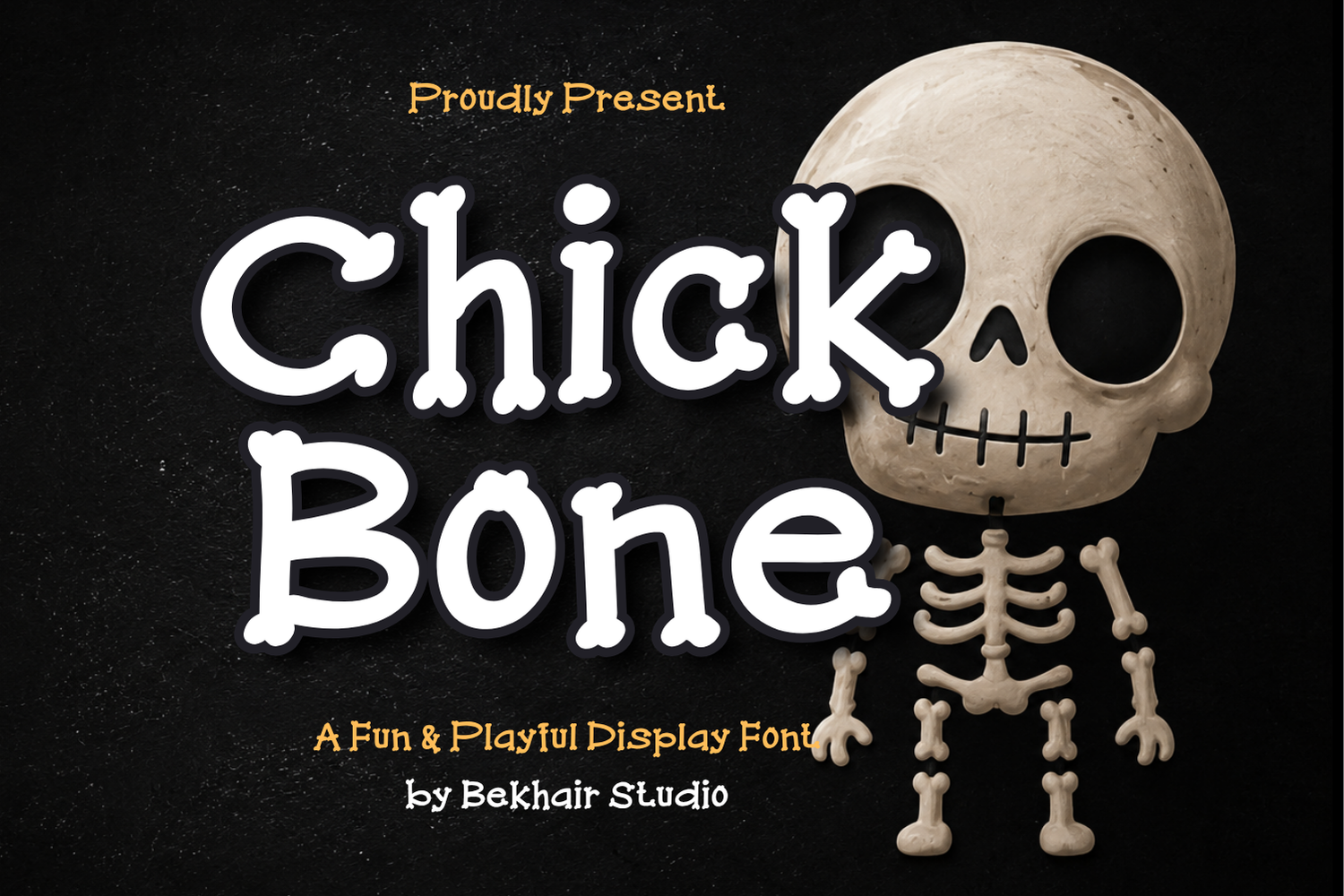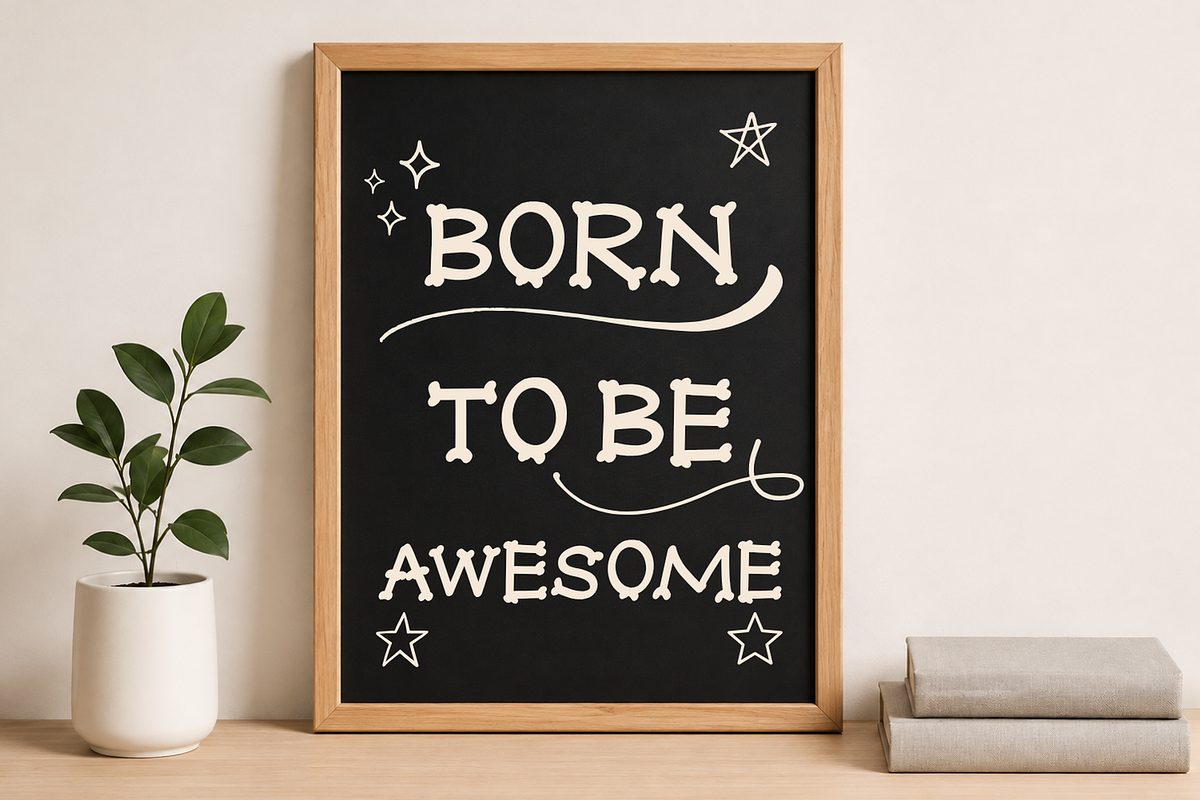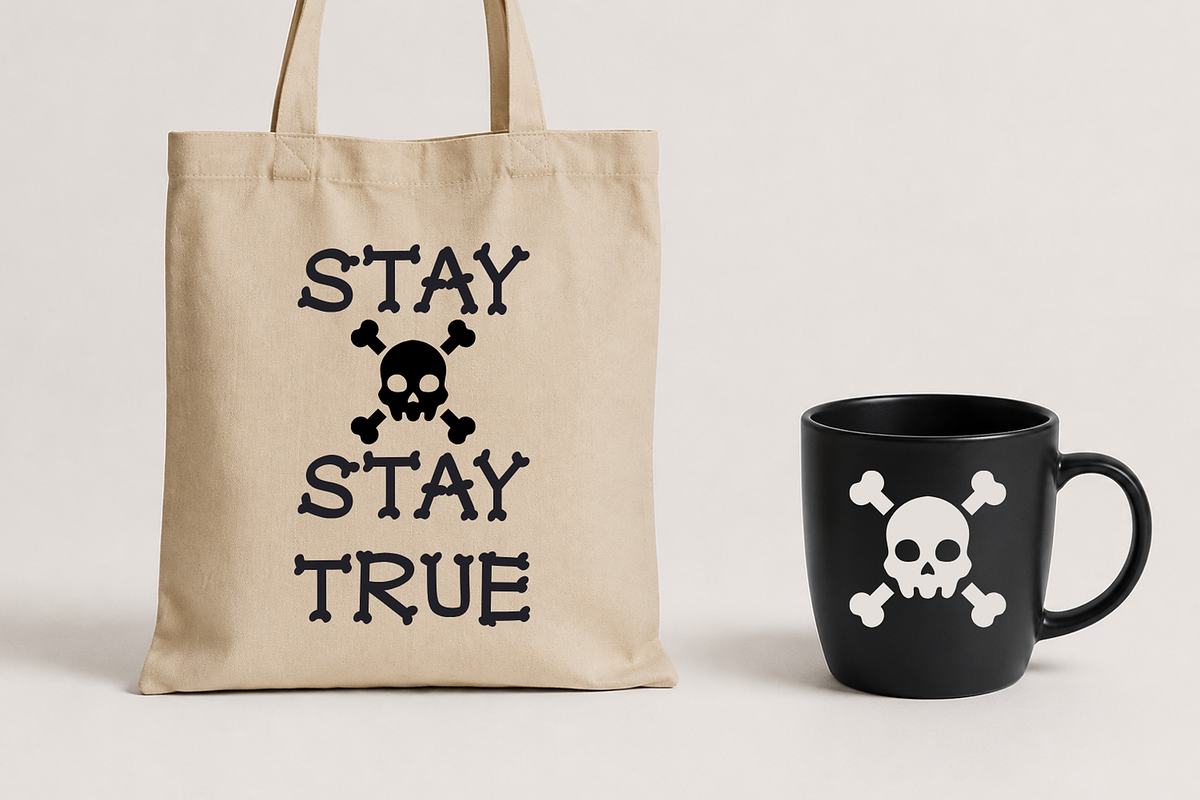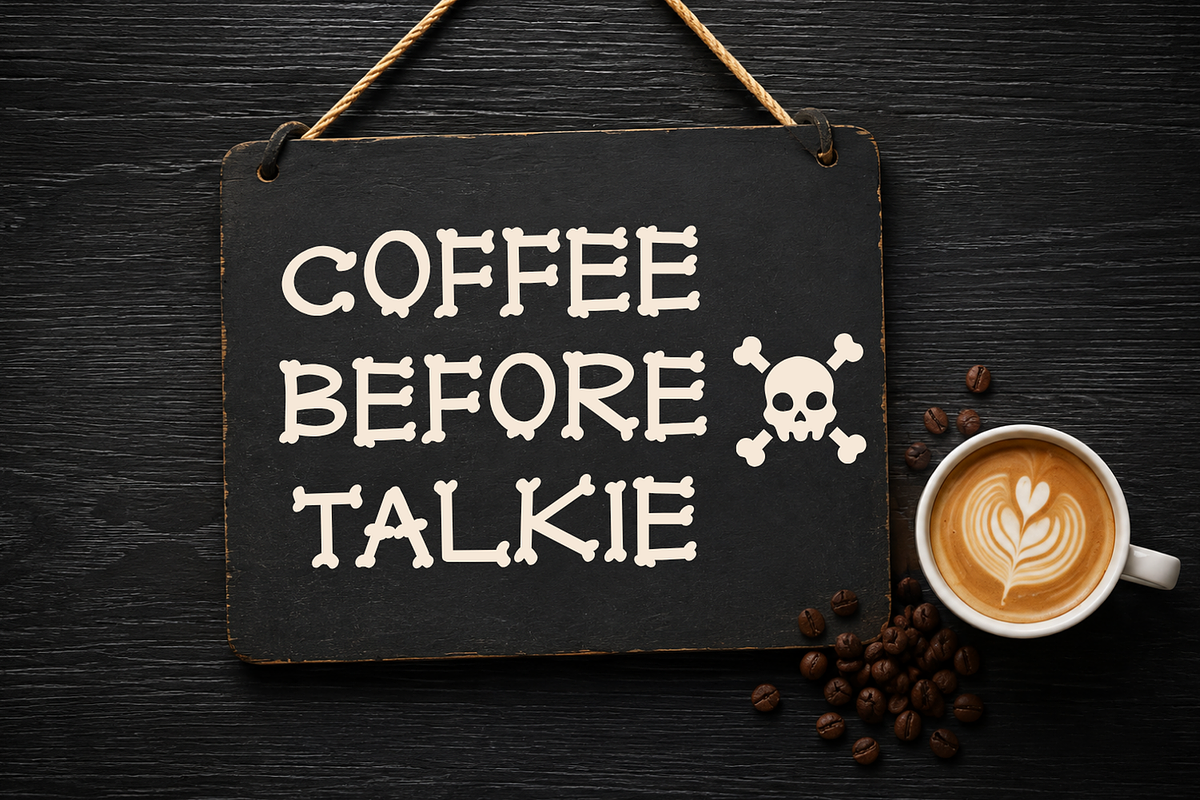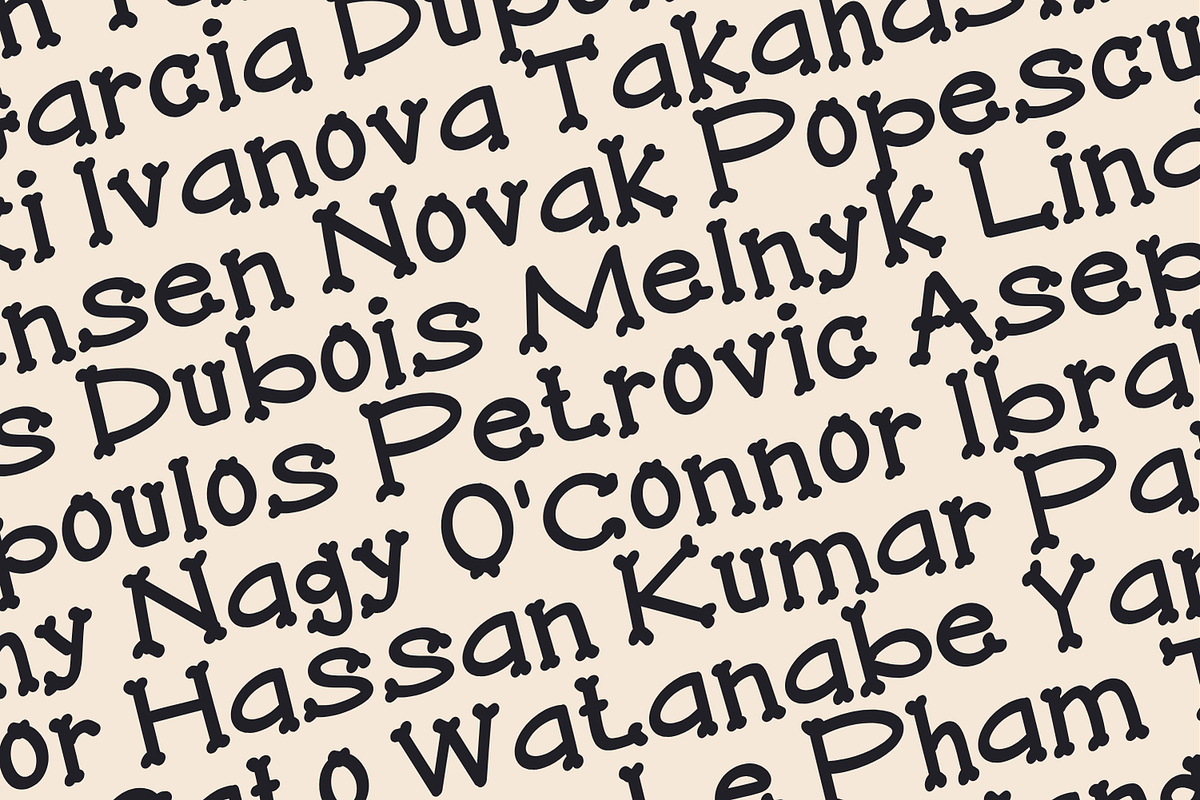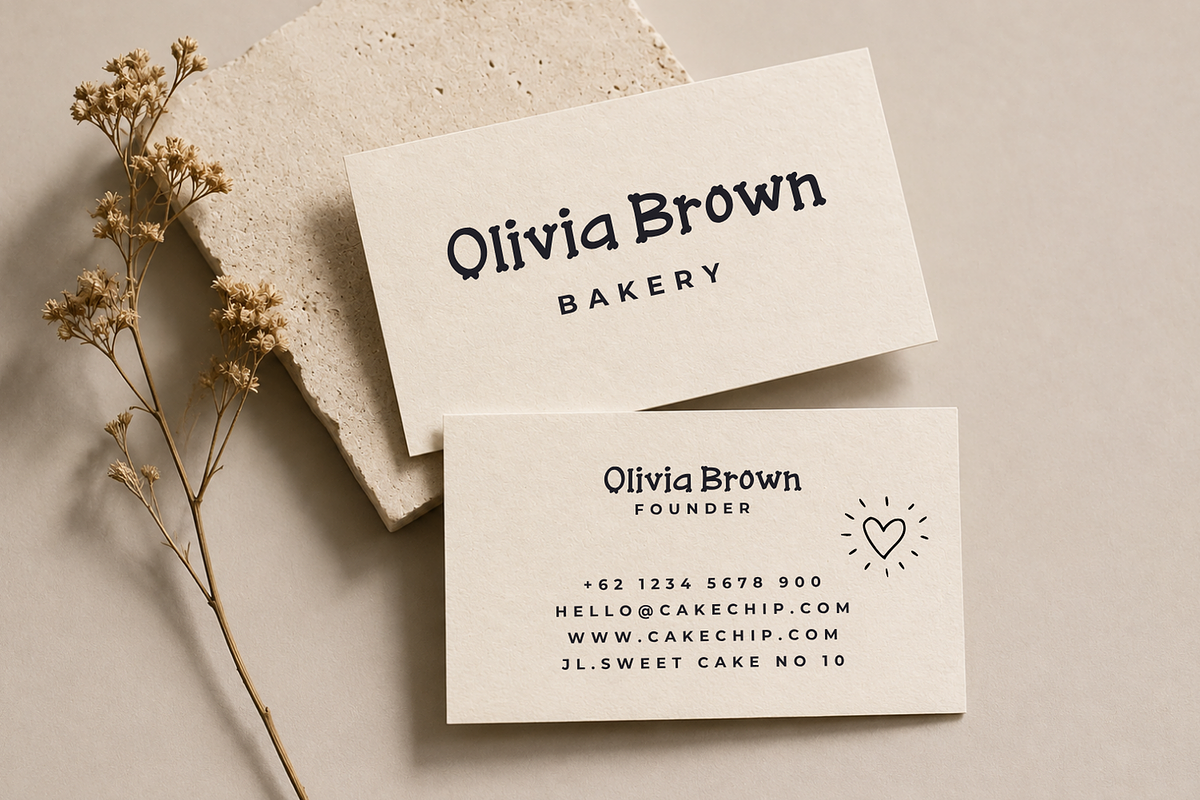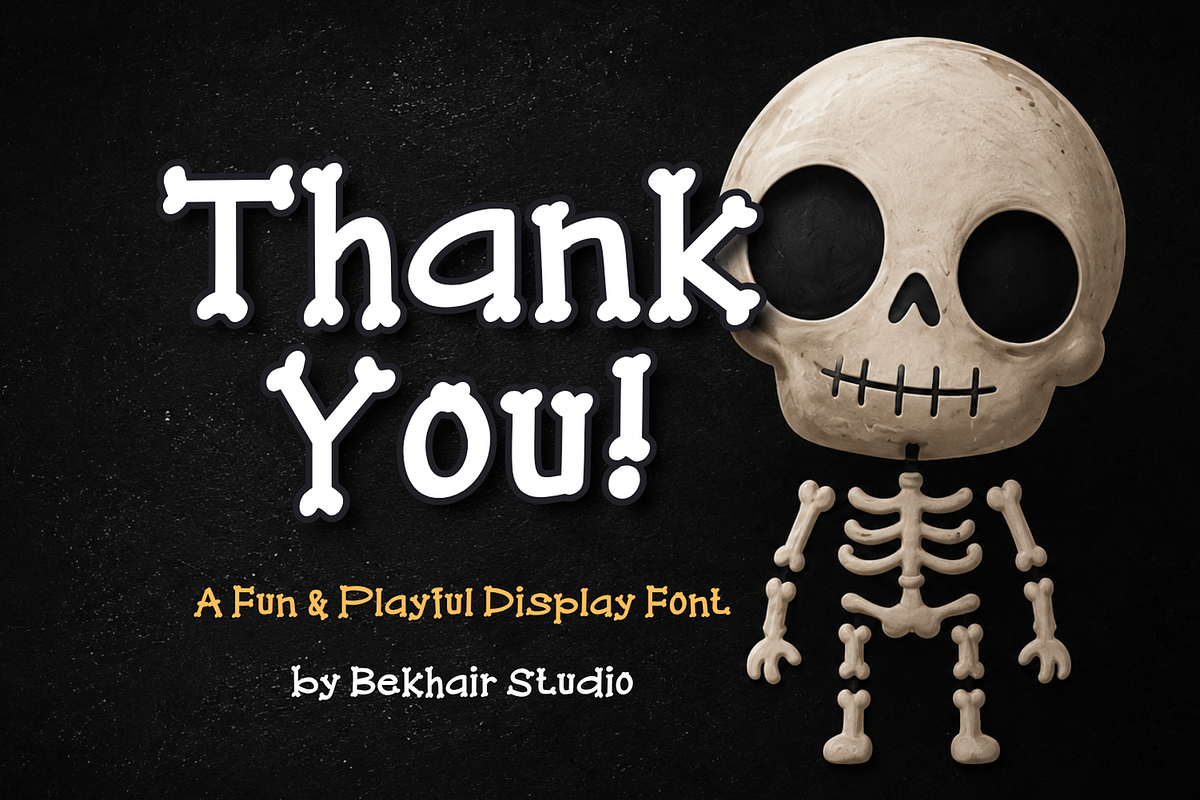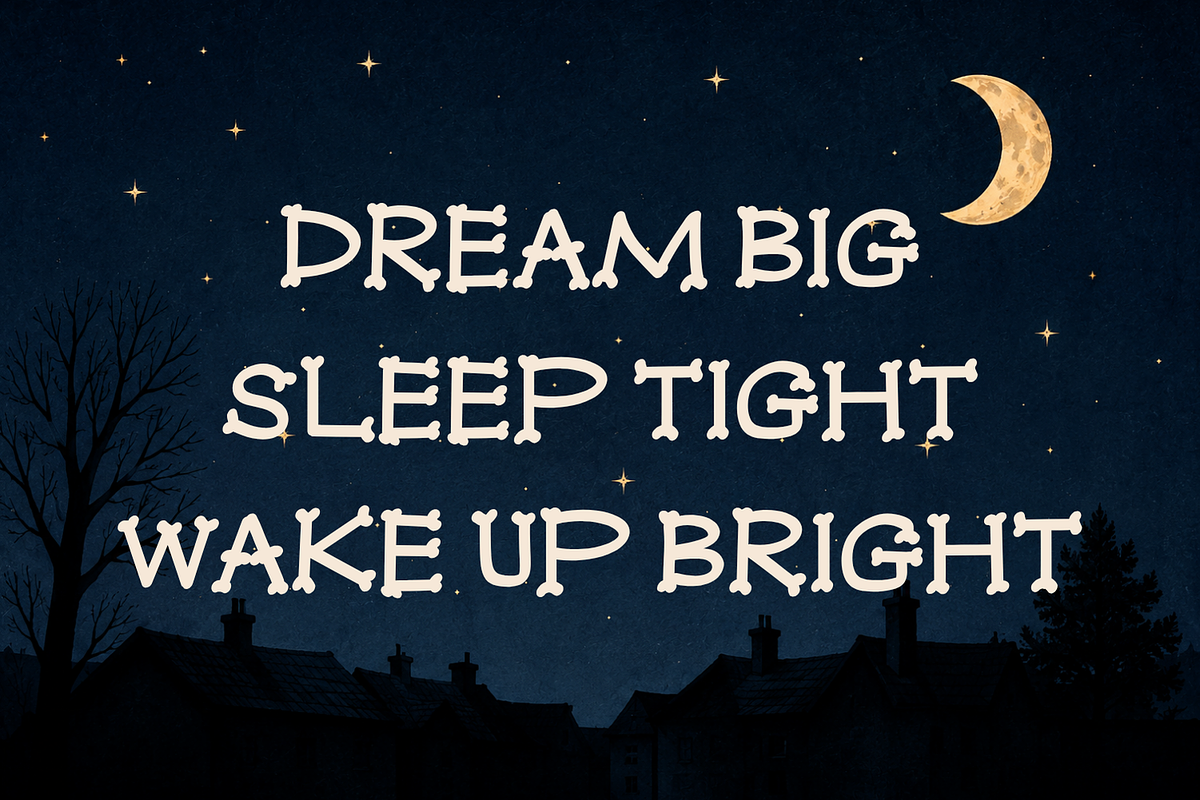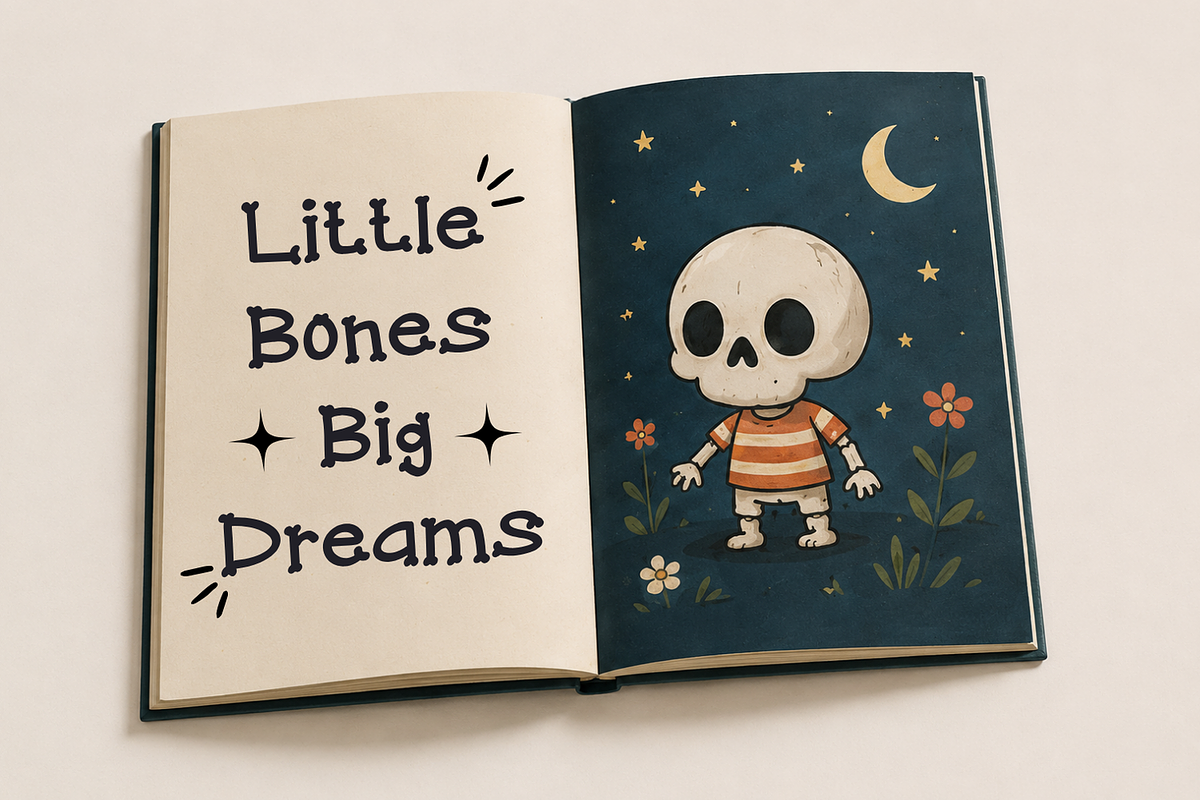
Chickbone – Playful Display Font
Chickbone is a fun, quirky, and playful display font designed to make your designs instantly more memorable. Its distinctive bone-inspired details, rounded letterforms, and charming spooky personality create a unique visual style that works especially well for Halloween, kids’ products, playful branding, merchandise, and novelty designs.
The font includes uppercase and lowercase letters, numbers, punctuation, and multilingual characters, giving you flexibility for both short headlines and complete design compositions.
Chickbone is ideal for T-shirts, tote bags, coffee packaging, posters, wall art, stickers, children’s books, party invitations, labels, product packaging, café branding, social media graphics, and seasonal designs.
Fun and playful display style
Distinctive bone-inspired letter details
Quirky, spooky, and whimsical personality
Numbers and punctuation
Multilingual character support
Excellent for bold headlines and display typography
Suitable for print and digital projects
Great for merchandise and packaging
Works well with Halloween, kids, café, and novelty themes
Chickbone is particularly useful when you want typography to become a visual feature of the design itself, rather than simply supporting other elements.